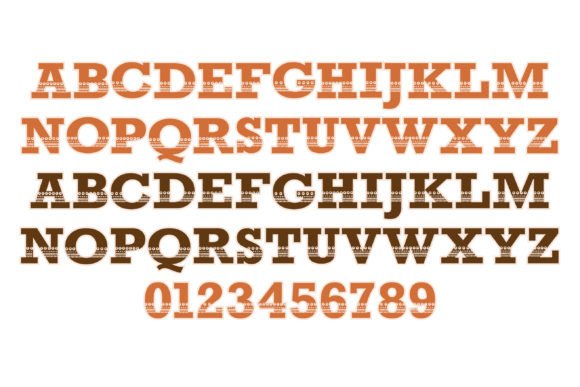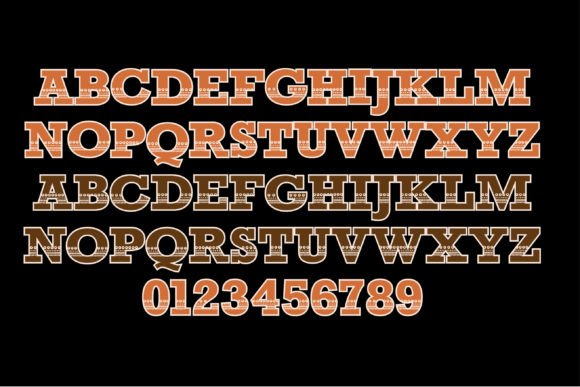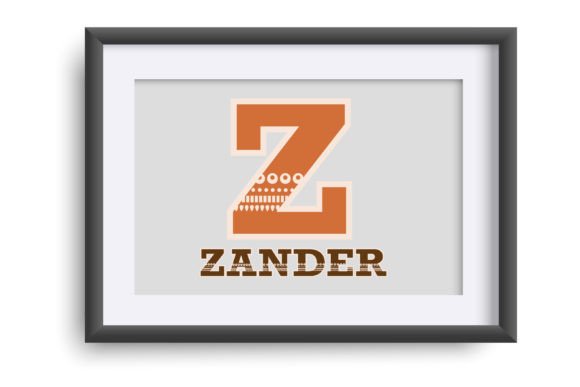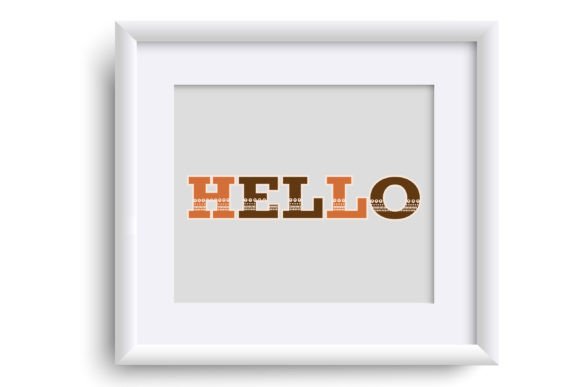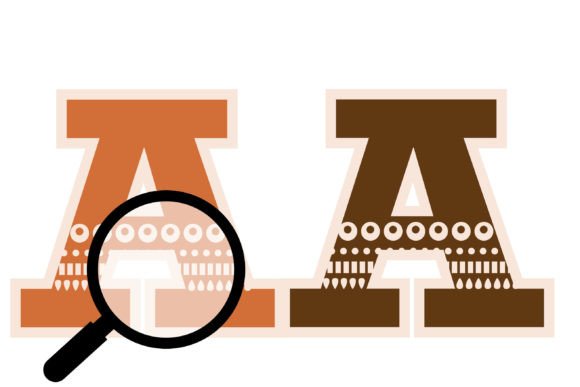
About Simply Thanksgiving Font
Introducing Simply Thanksgiving, a fun and fancy color font that will bring a touch of joy and elegance to your holiday projects. With its incredible style and vibrant colors, this font is sure to make your Thanksgiving creations stand out.
Simply Thanksgiving is the perfect choice for a wide range of holiday projects. Whether you’re designing greeting cards, party invitations, festive banners, or beautiful table settings, this font will add a delightful and festive touch. Its playful and fancy lettering captures the spirit of Thanksgiving, making it a wonderful choice for expressing gratitude and warmth.
The incredible style of Simply Thanksgiving is sure to captivate hearts and evoke a sense of joy and celebration. Its unique combination of fun and elegance makes it versatile for both casual and formal designs. Let your imagination run wild and create stunning holiday projects that leave a lasting impression.
Simply Thanksgiving is not just a font, it’s an invitation to embrace the spirit of gratitude and togetherness. It embodies the essence of Thanksgiving and brings that warmth and joy to your creative endeavors. Add this font to your collection and let it inspire you to create gorgeous holiday projects that will be cherished by all.
So, dive into the world of Simply Thanksgiving and let its incredible style and vibrant colors ignite your creativity. Celebrate the season of gratitude with this fun and fancy color font, and watch as your holiday projects shine with beauty and charm.